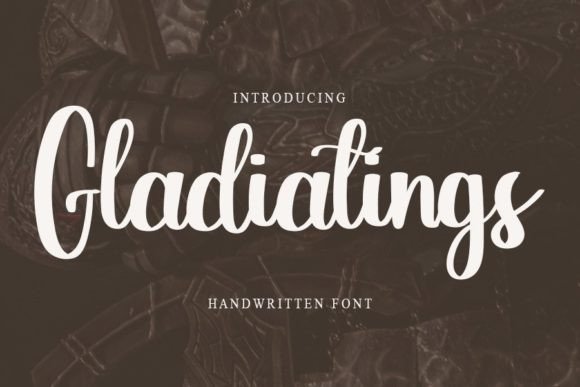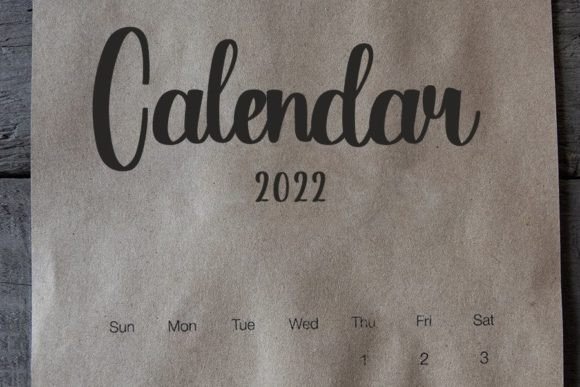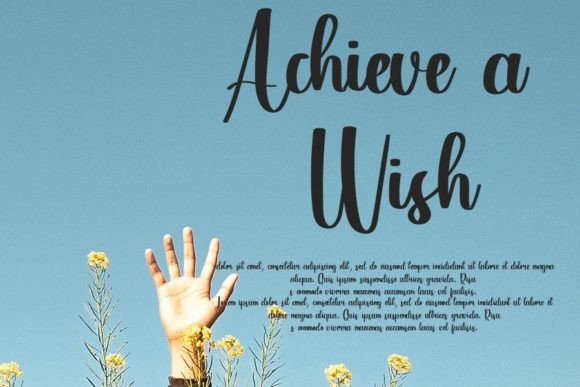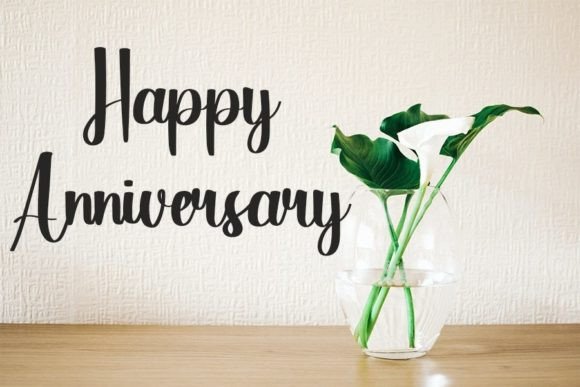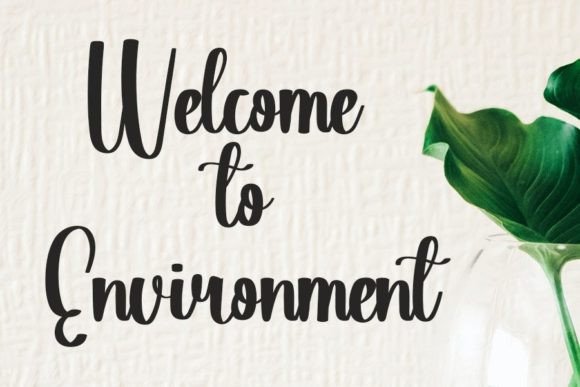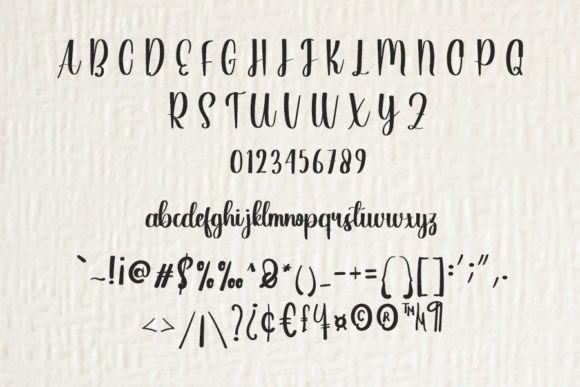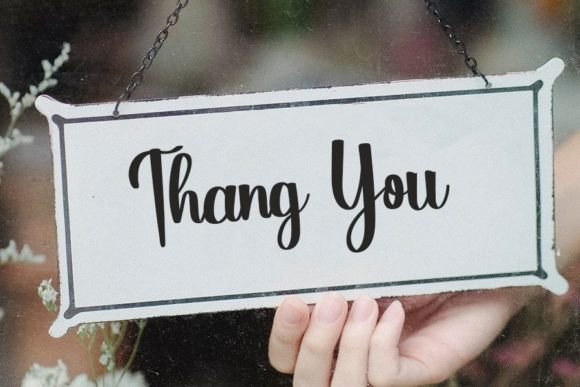
Gladiatings Font
About Gladiatings Font
“Gladiatings” is not just a font; it’s a clean, relaxed, and friendly handwritten typeface that infuses a sense of ease into your creative projects. With its neat and simple style, this font is versatile and holds the potential to become your favorite go-to choice, fitting seamlessly into a wide variety of designs, regardless of the occasion!
The clean lines and friendly demeanor of “Gladiatings” make it adaptable to various design contexts. Visualize it enhancing your projects, from casual invitations to more formal occasions, effortlessly uplifting the visual appeal.
For websites, social media posts, or any design aiming for a friendly and approachable aesthetic, “Gladiatings” becomes the ideal companion. Its relaxed style creates a welcoming atmosphere, making it a trustworthy font for projects that seek a friendly and engaging tone.
Whether you’re working on branding, packaging, or any creative endeavor, “Gladiatings” stands out as a reliable and versatile typeface. Its simplicity adds a touch of elegance, ensuring it remains a timeless choice for a broad range of design applications.
In essence, “Gladiatings” is more than just a font; it’s a design ally that effortlessly adapts to any occasion, contributing a clean and friendly aesthetic to your projects. Let “Gladiatings” be the font that brings simplicity and warmth to your creative endeavors.